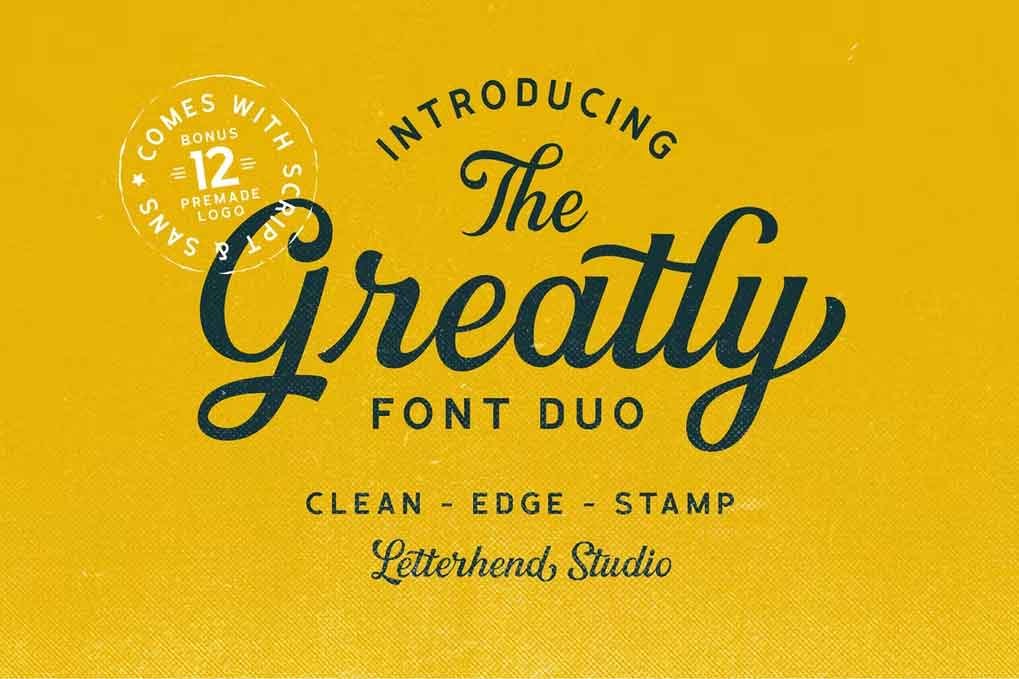
Greatly Font Duo Logo Templates
Greatly Font Duo is a pair of script and sans font that perfectly. The classic feel is really perfect for you who needs a typeface for especially logotype, apparel, invi…
Character set · 301 glyphs
Greatly Font Duo is a pair of script and sans font that perfectly. The classic feel is really perfect for you who needs a typeface for especially logotype, apparel, invitation, branding, packaging, advertising etc.
Where Greatly Font Duo Logo Templates works best
Greatly Font Duo Logo Templates gives long-form text a classic, trustworthy rhythm — ideal for magazine spreads, annual reports and book interiors.
Pair Greatly Font Duo Logo Templates with generous letter-spacing for wordmarks in fashion, hospitality, wine and jewellery branding.
Use Greatly Font Duo Logo Templates for slide titles in Keynote, PowerPoint or Google Slides to add authority without looking dated.
What is Greatly Font Duo Logo Templates good for?